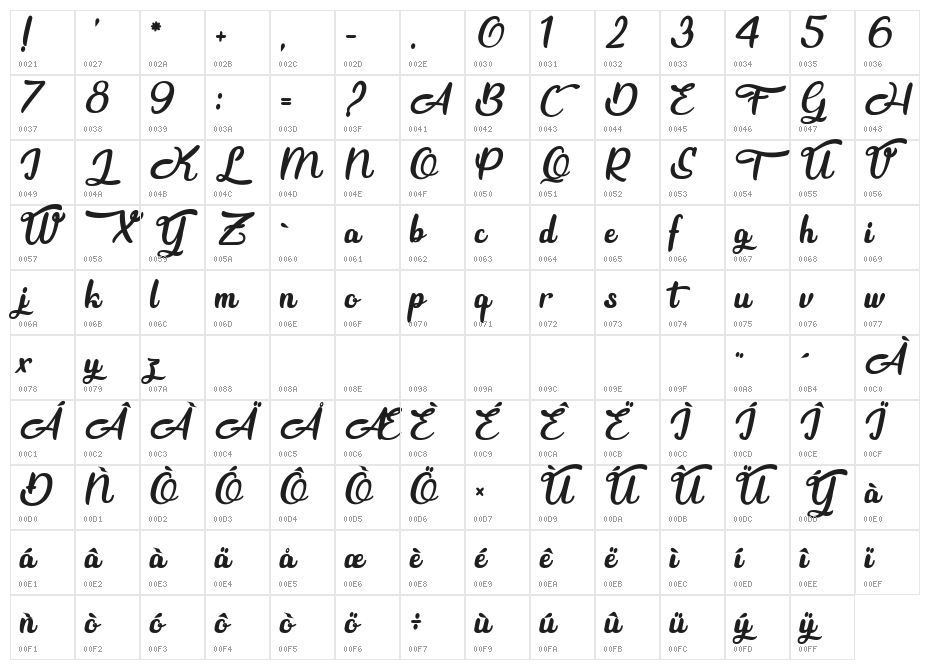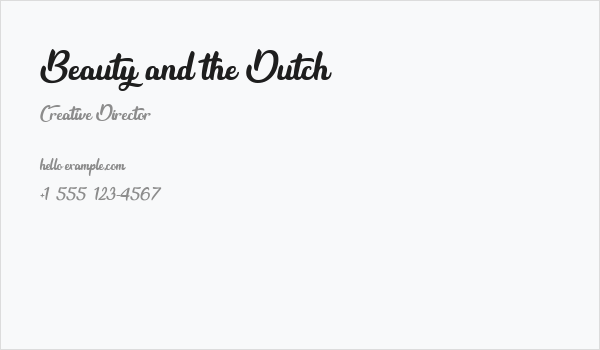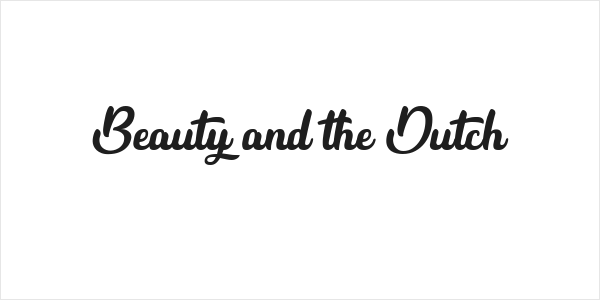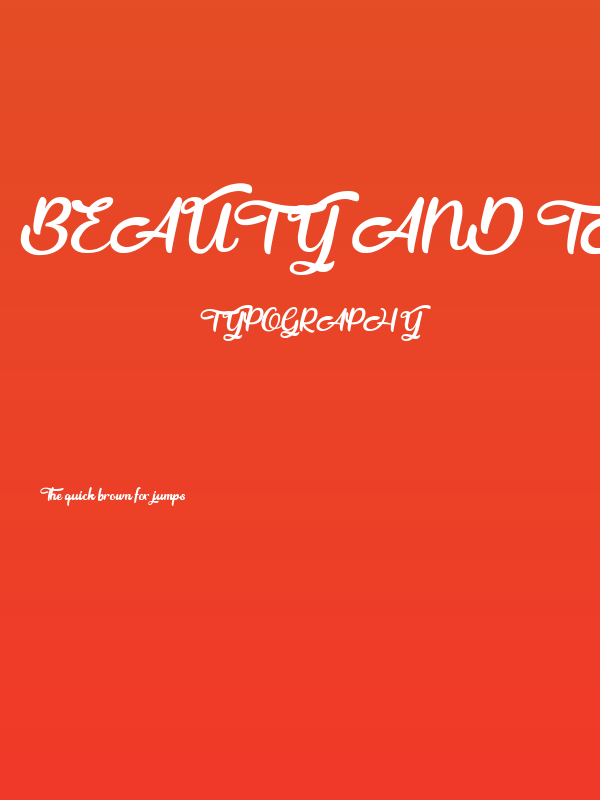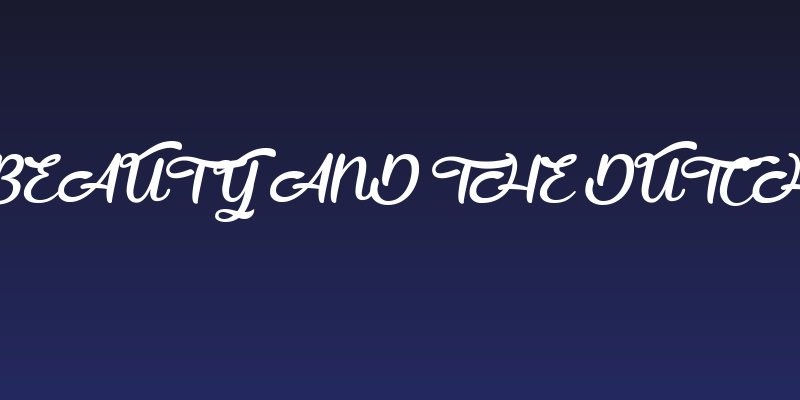
Beauty and the Dutch Font
Beauty and the Dutch Description
This font features a flowing, cursive style that exudes elegance and sophistication. The uppercase letters are intricately designed with smooth curves and loops, giving them a graceful appearance. The lowercase letters maintain a consistent flow, enhancing readability while retaining a stylish flair. Numbers and special characters are crafted with the same attention to detail, ensuring a cohesive look across all text elements. The overall design is reminiscent of classic calligraphy, making it suitable for projects that require a touch of refinement and class.
Overall StyleClassic
Use CaseLogos, Invitations, Decorative text
Proposed ProjectsIdeal for wedding invitations, elegant branding, greeting cards, and luxury product packaging.